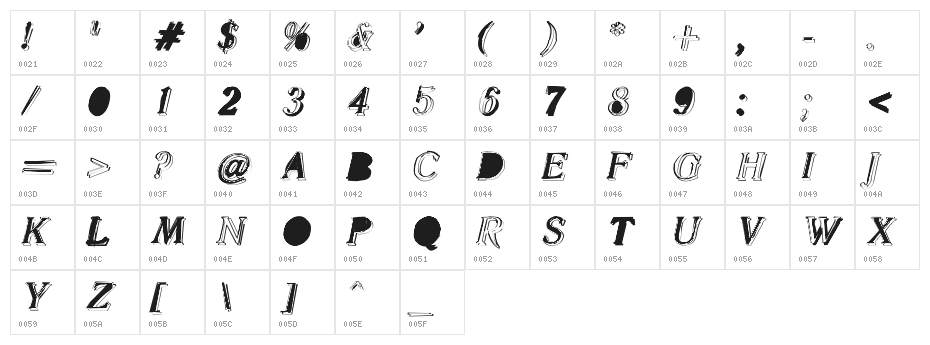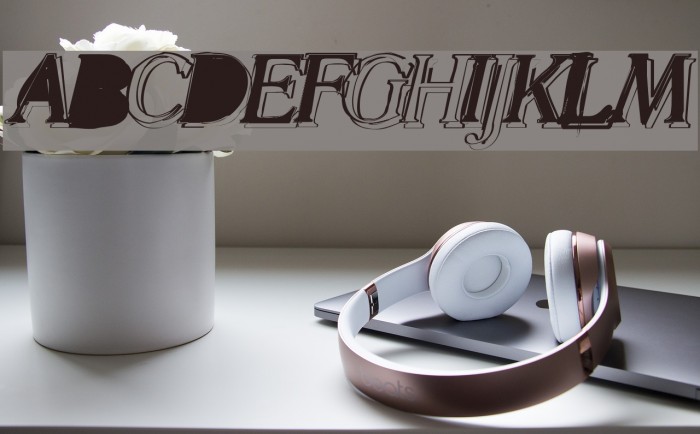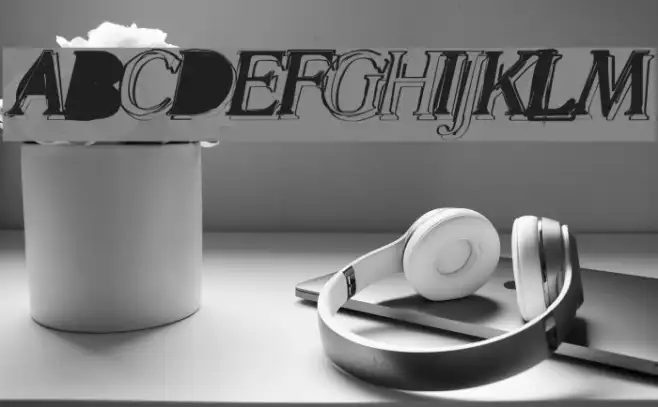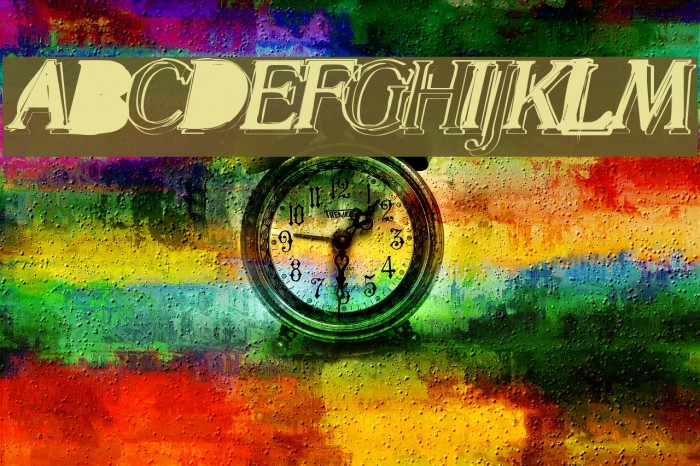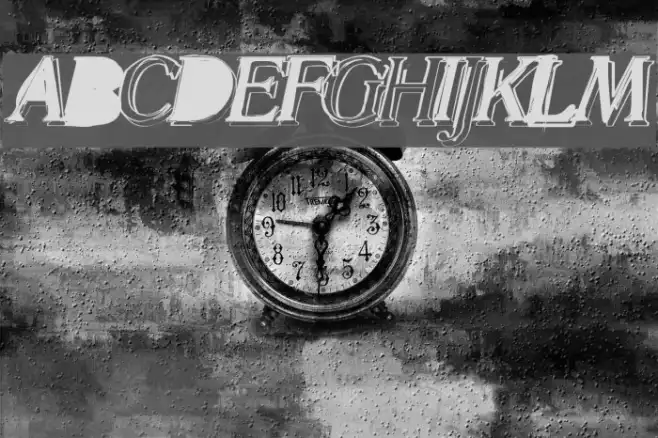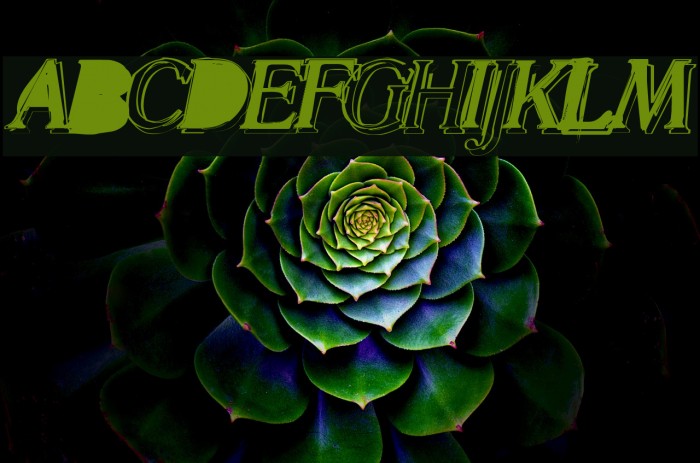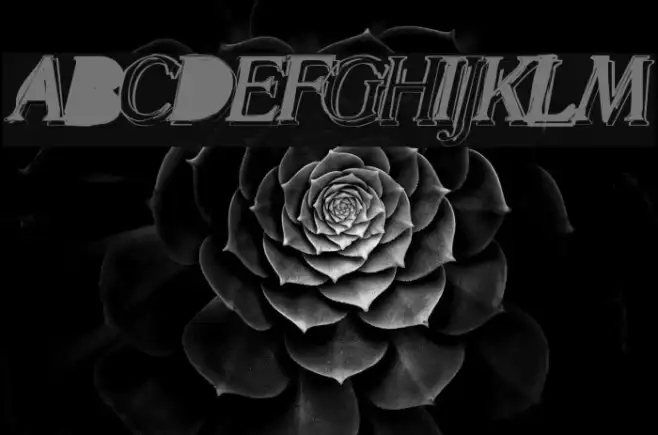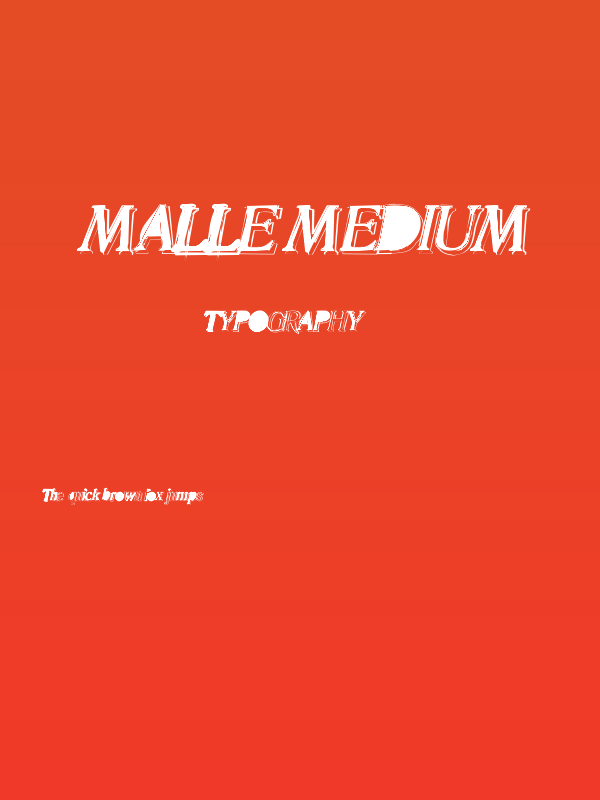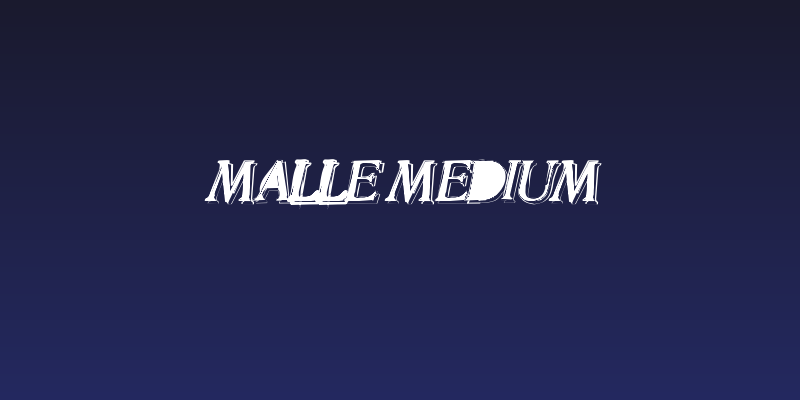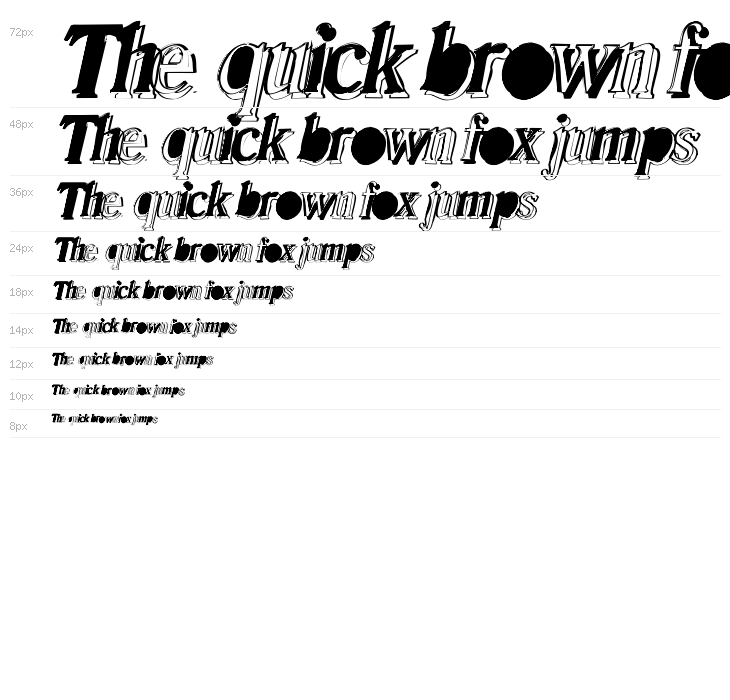
malle Medium Font
malle Medium Description
This font features a bold and dynamic style with a strong presence. The letters are characterized by thick strokes and a shadow effect that gives them a three-dimensional appearance. The uppercase letters are particularly striking, with sharp serifs and a slightly condensed form. The lowercase letters maintain the boldness, with some having unique curves and flourishes that add to the overall aesthetic. The numbers are equally bold, ensuring they stand out in any design. Special characters are creatively designed, maintaining the font's bold and shadowed style, making them suitable for attention-grabbing headlines or logos.